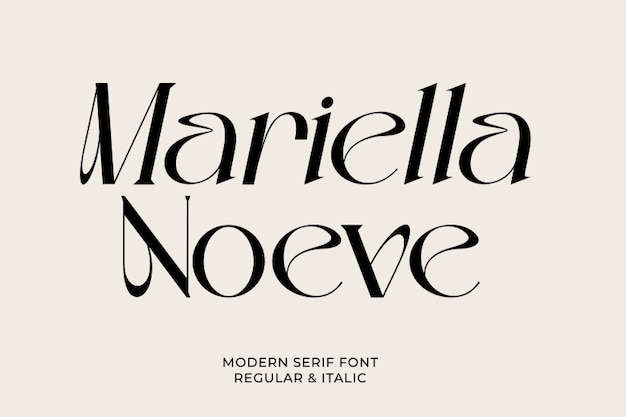
Mariella Noeve Font
Mariella Noeve is a modern, fancy font with joined parts that create a flowing, cohesive design. Its chic letterforms blend elegance with a touch of whimsy, giving text a unique, fashionable look. The smooth, interconnected lines lend a soft yet sophisticated feel, making Mariella Noeve ideal for upscale branding, invitations, and stylish design projects.